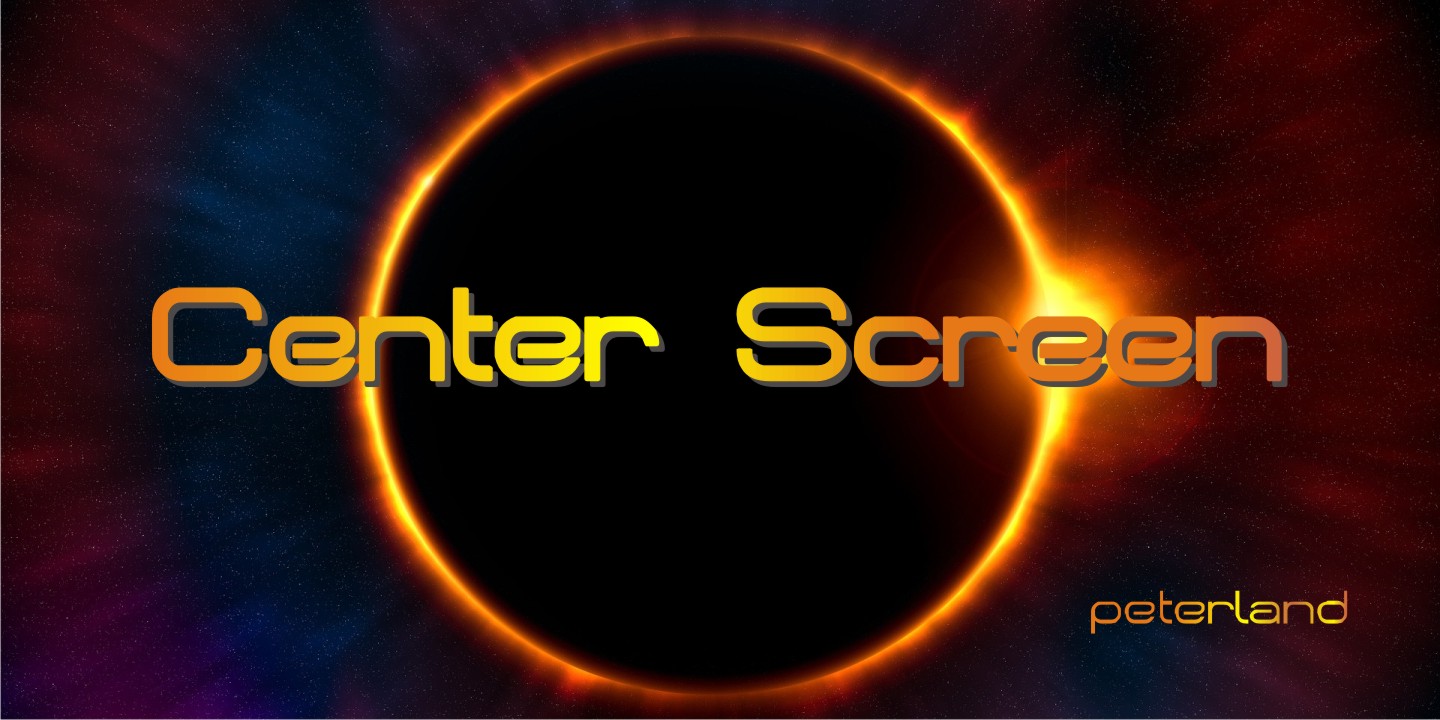
Center Screen Font excels in movie titles, digital displays, tech interfaces, gaming graphics, entertainment branding, screen-based designs, multimedia presentations, and cinematic typography applications.
Center Screen Font is exciting because it captures the commanding presence and visual impact of screen typography, featuring bold letterforms designed specifically for digital environments and entertainment media. This font delivers cinematic authority with its screen-optimized character that dominates visual attention.
Center Screen Font family includes light, regular, medium, bold weights, plus condensed and extended variations with digital-inspired alternates, providing complete functionality for screen-based and entertainment design applications.
Command attention with Center Screen Font Free Download. This powerful typeface is engineered for maximum visual impact on screens and digital displays, featuring bold letterforms that demand viewer attention and deliver cinematic presence. Perfect for designers working in entertainment and digital media, this font delivers exceptional performance with screen-optimized character that translates beautifully across all display technologies.
The precisely crafted characters showcase optimal proportions and contrast designed specifically for digital environments. Each letter demonstrates technical excellence while maintaining distinctive visual personality, making it ideal for both large-format cinema displays and intimate mobile interfaces.
Whether you're creating movie trailers, gaming interfaces, or digital entertainment campaigns, Center Screen Font provides the commanding screen presence your projects demand. This versatile typeface seamlessly adapts to various digital contexts while maintaining its authoritative character, making it an essential tool for designers who specialize in creating memorable visual experiences that capture audience attention and deliver professional entertainment industry standards.